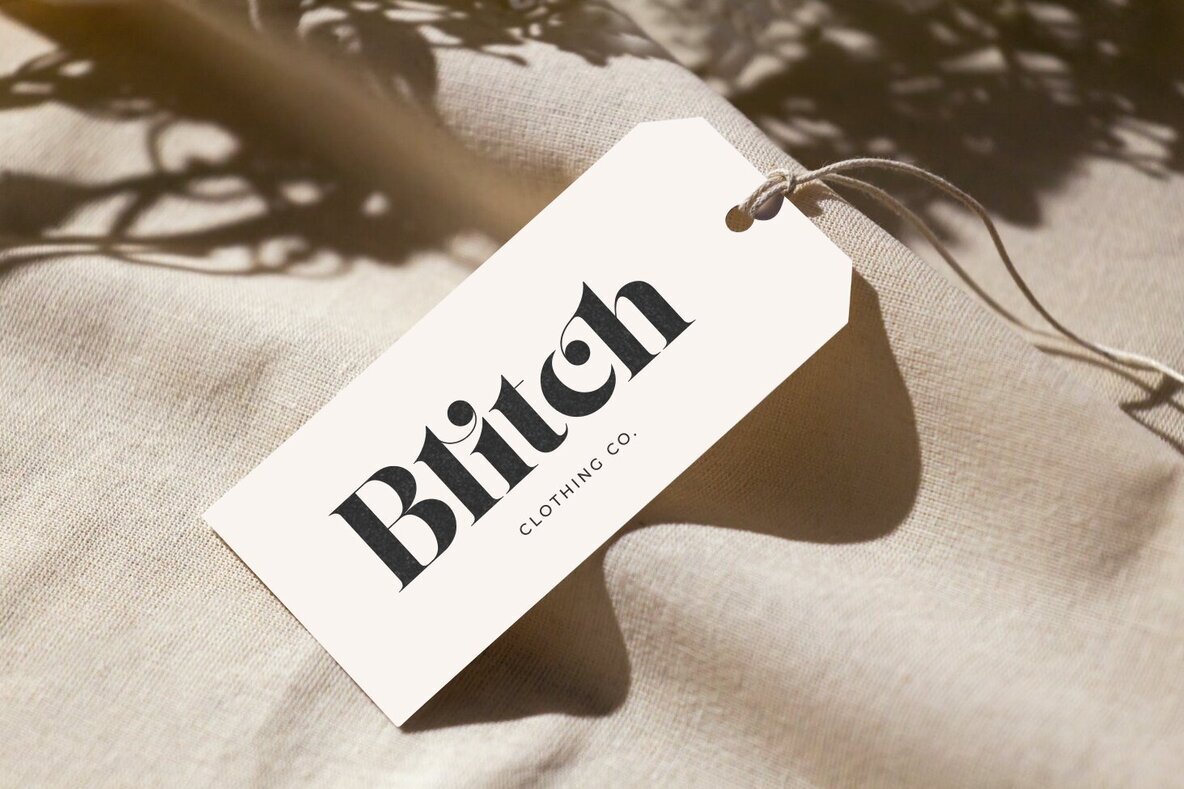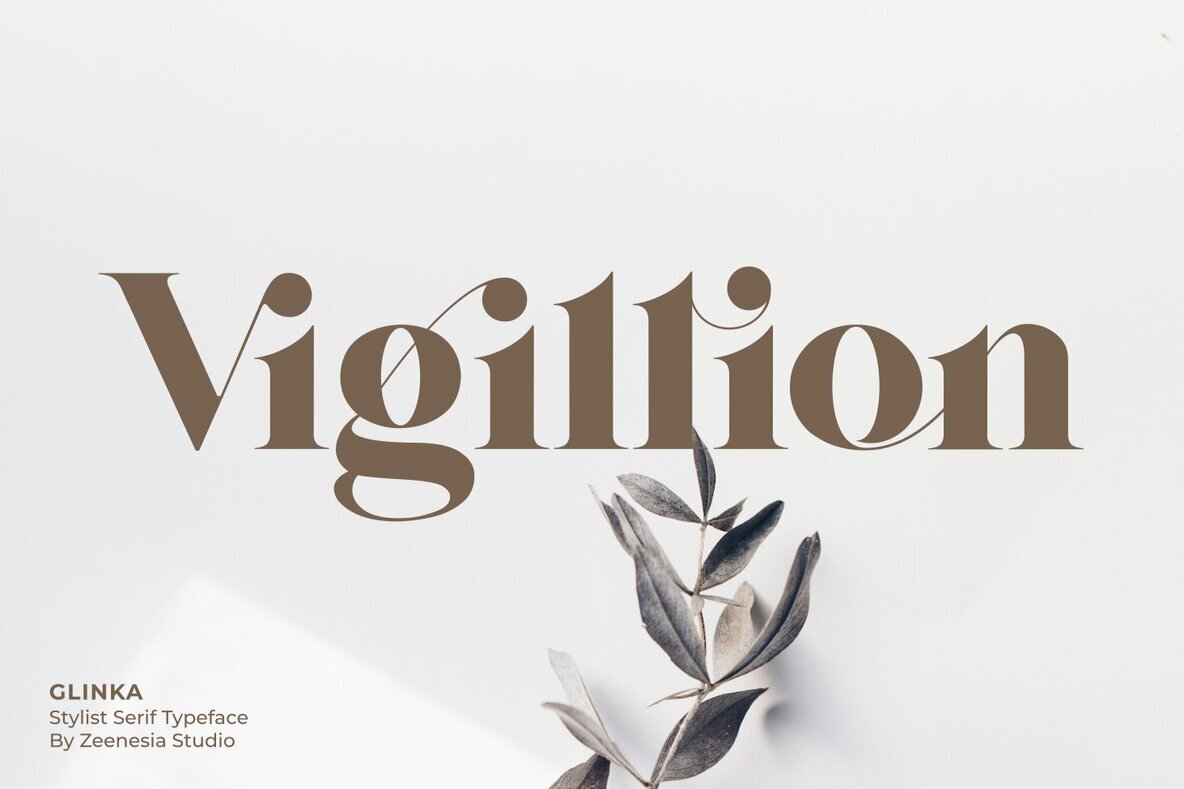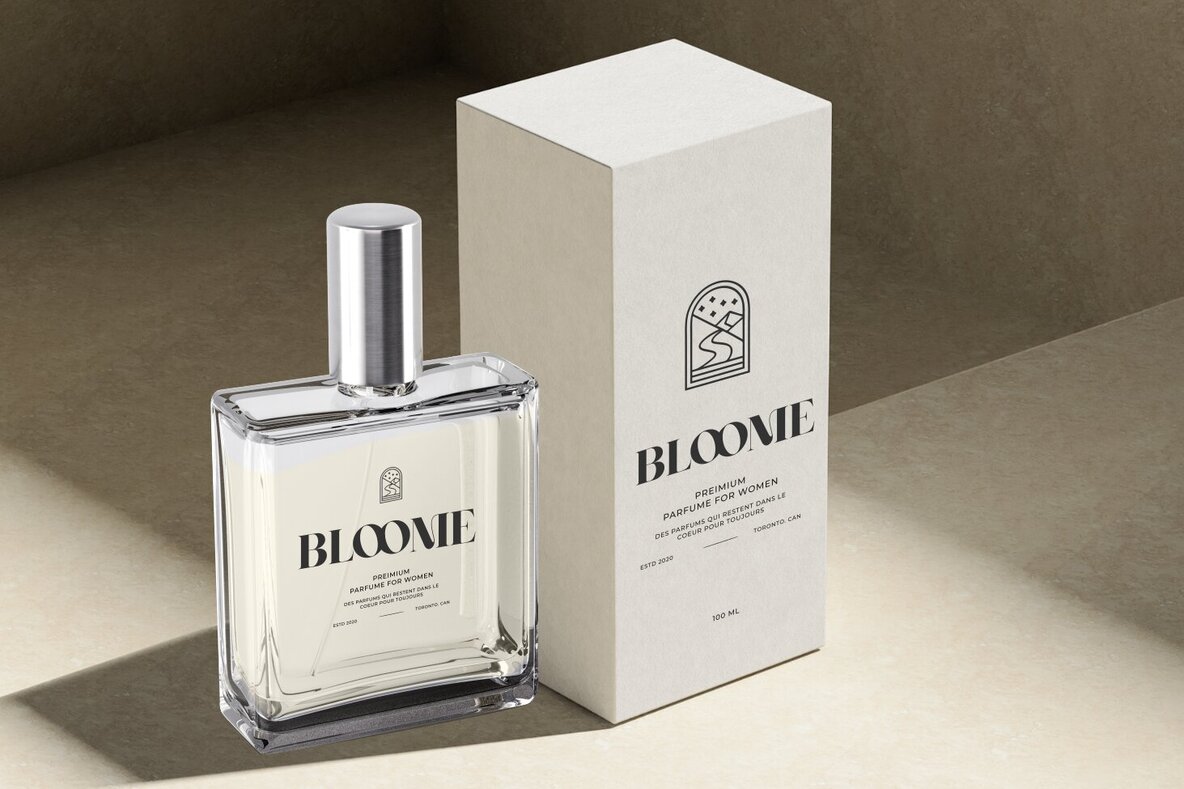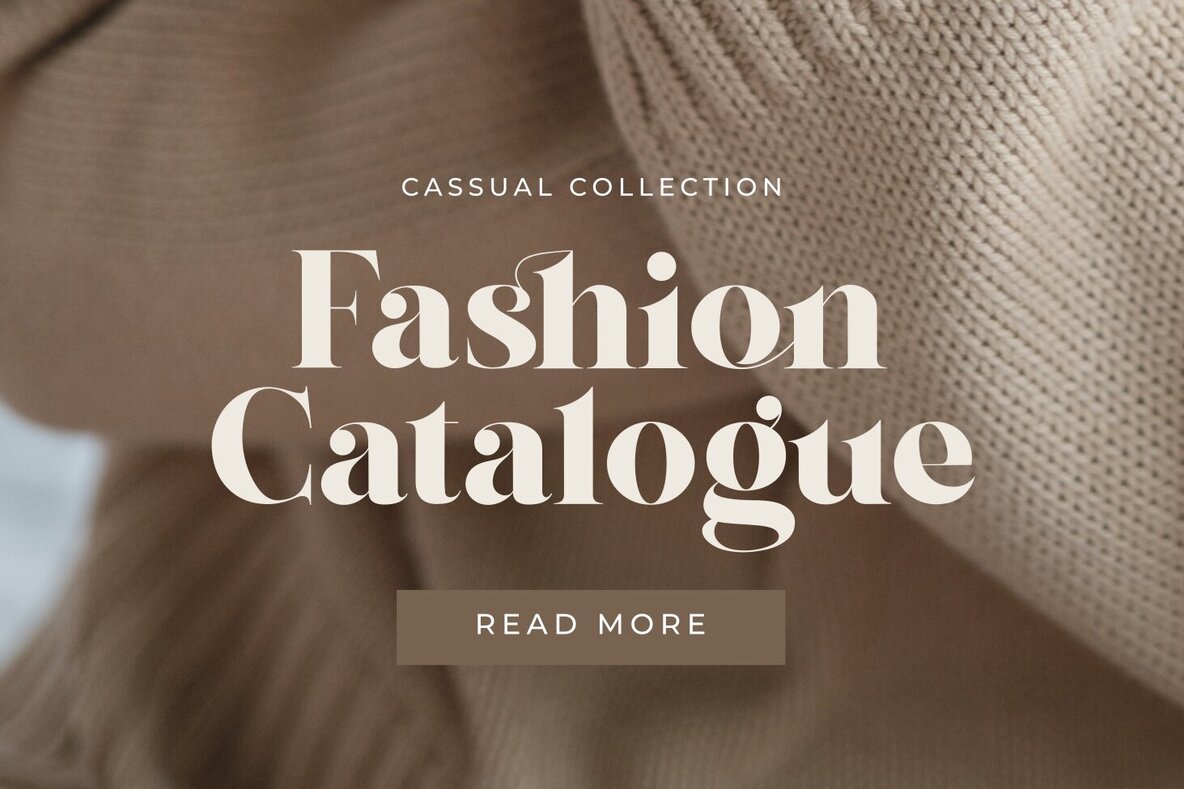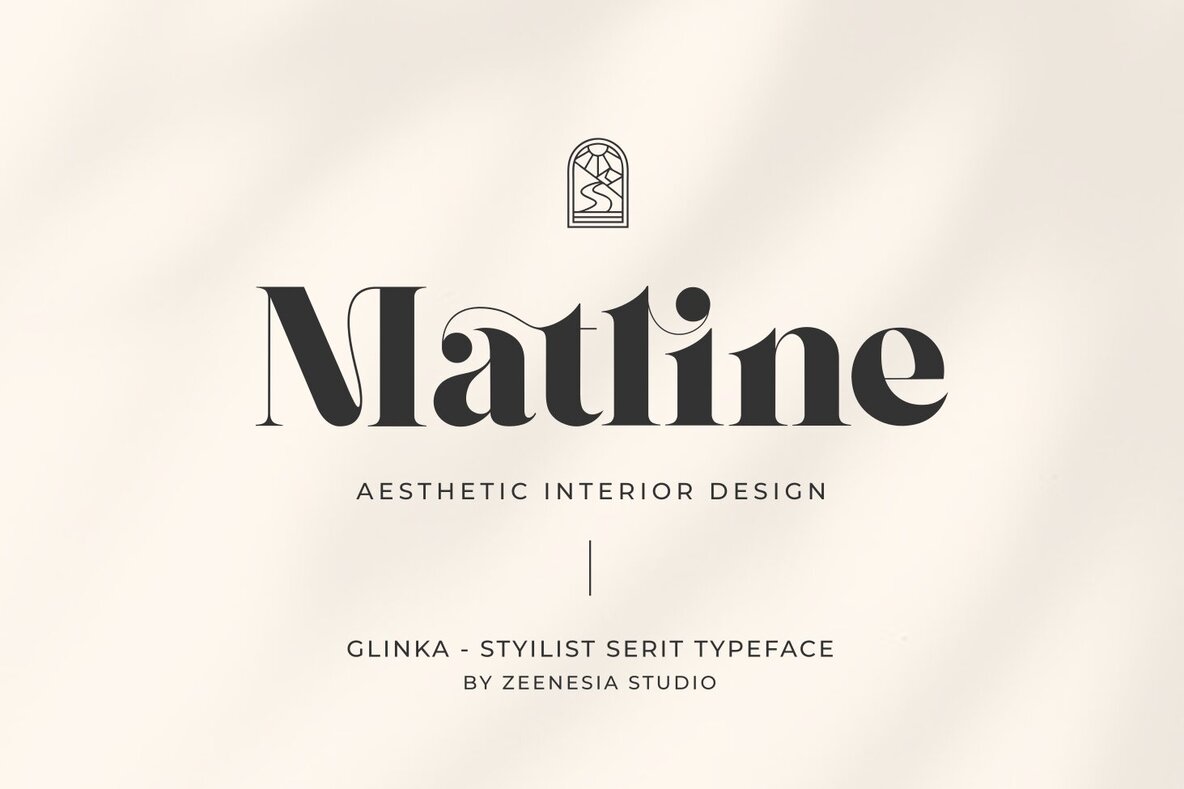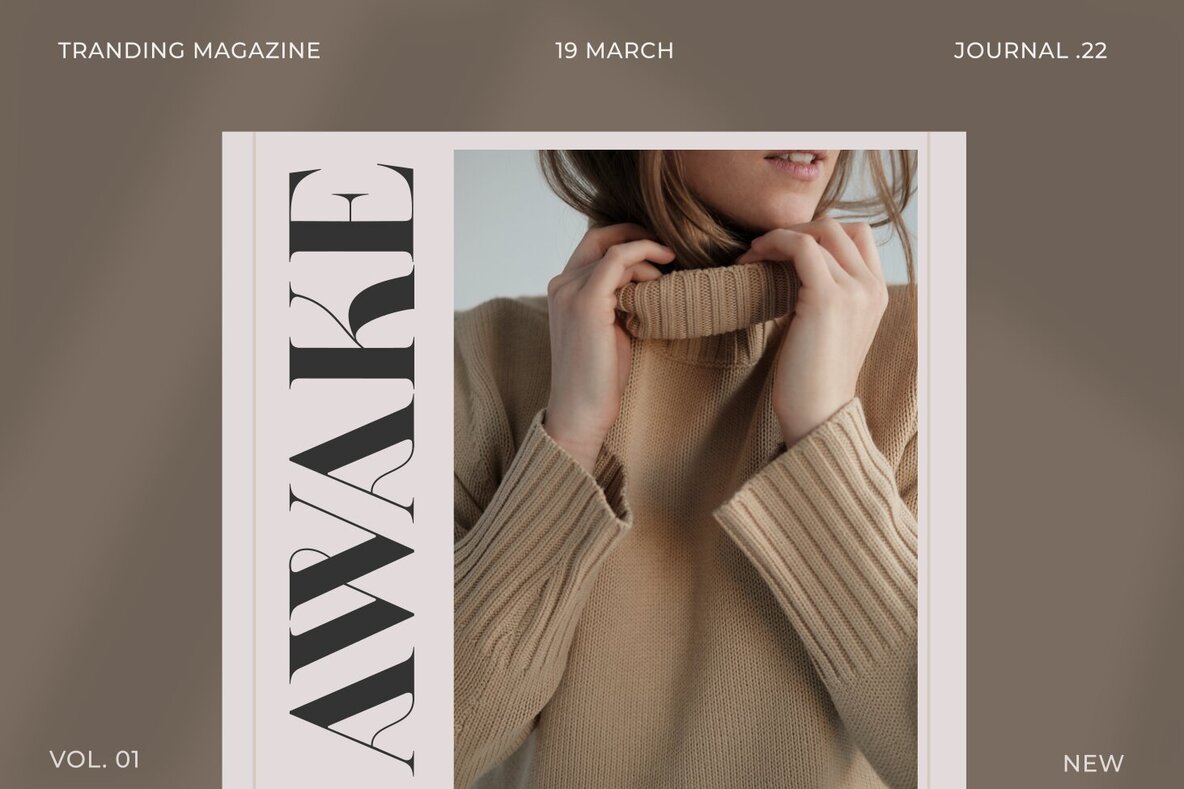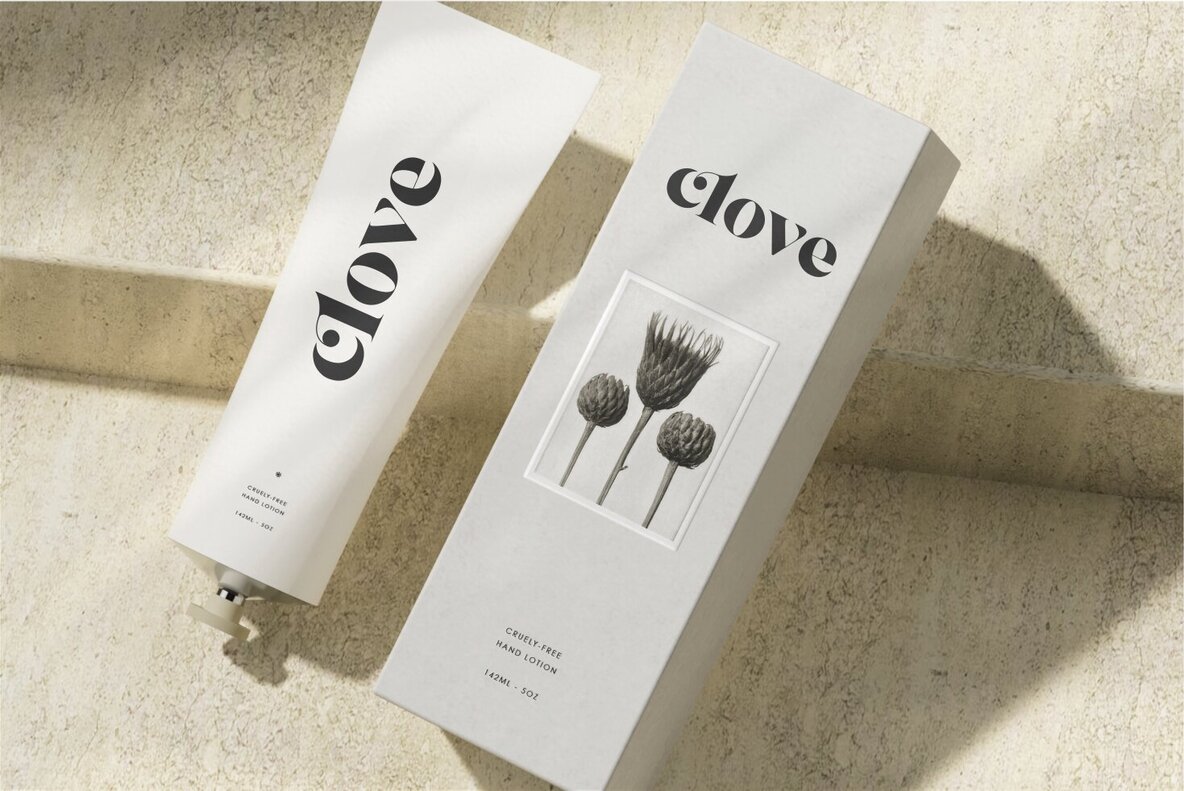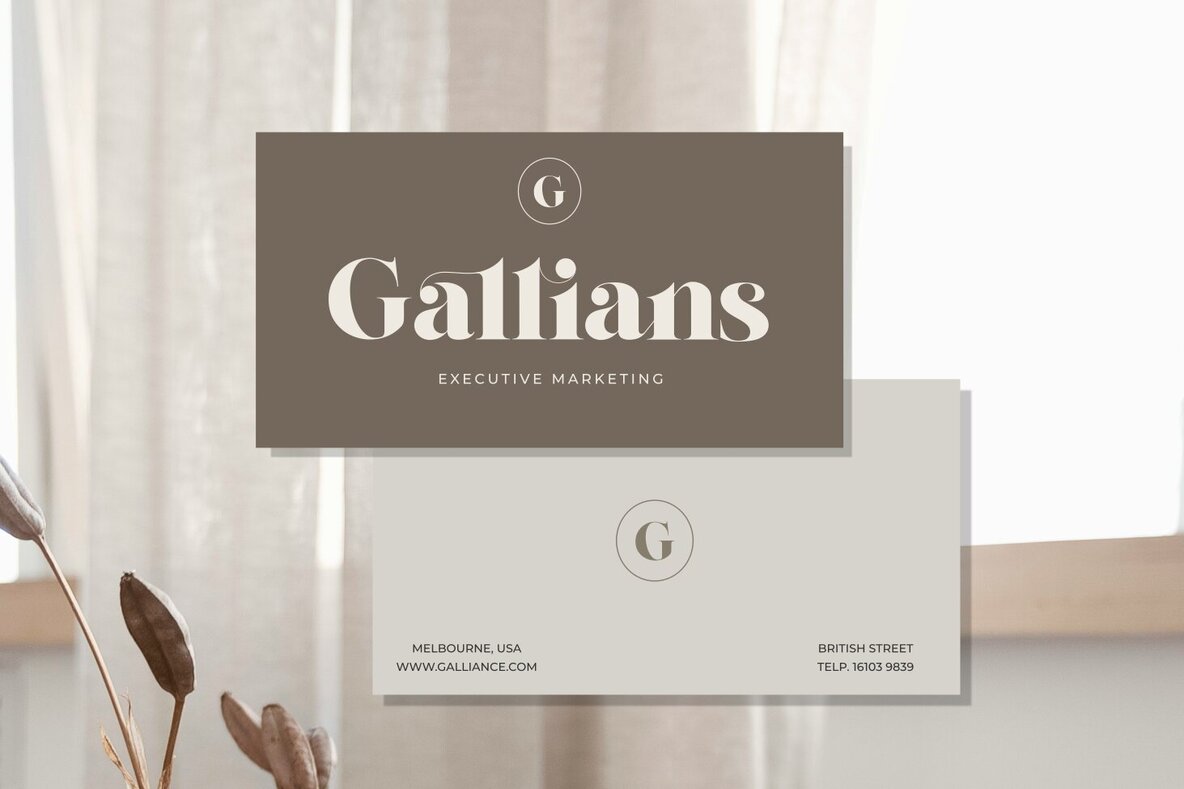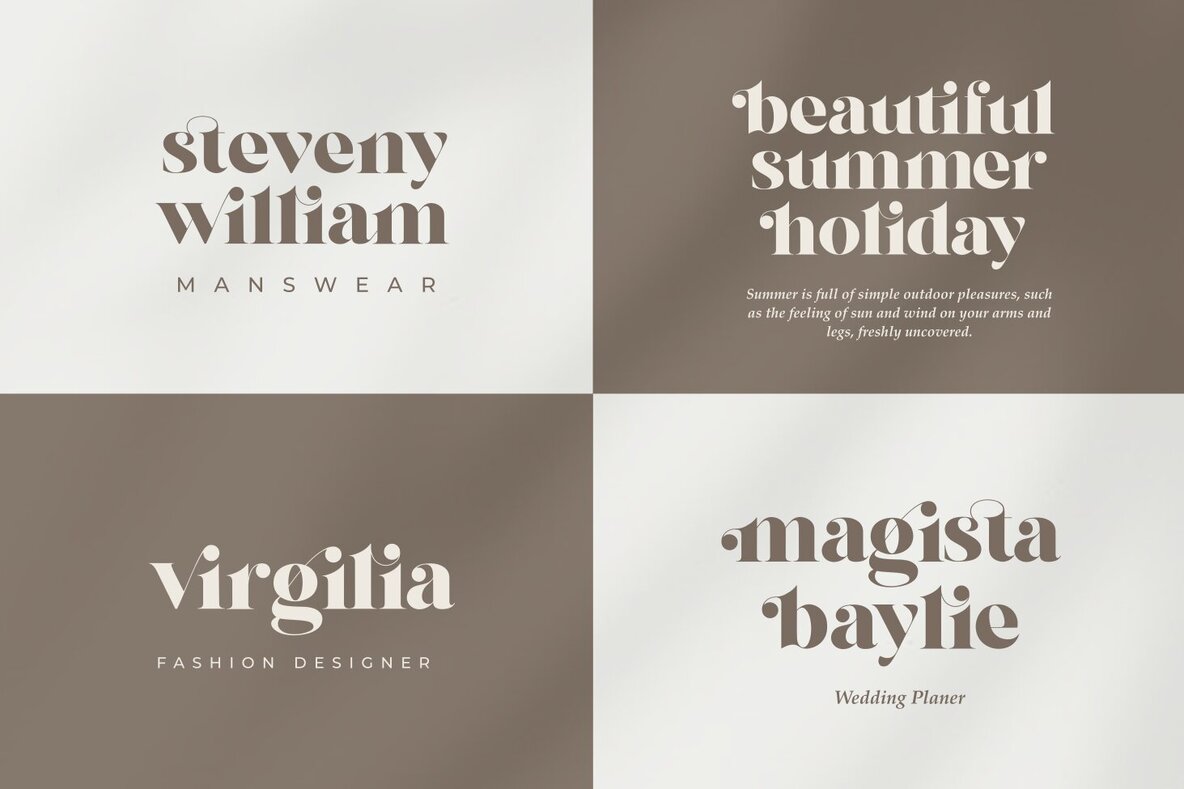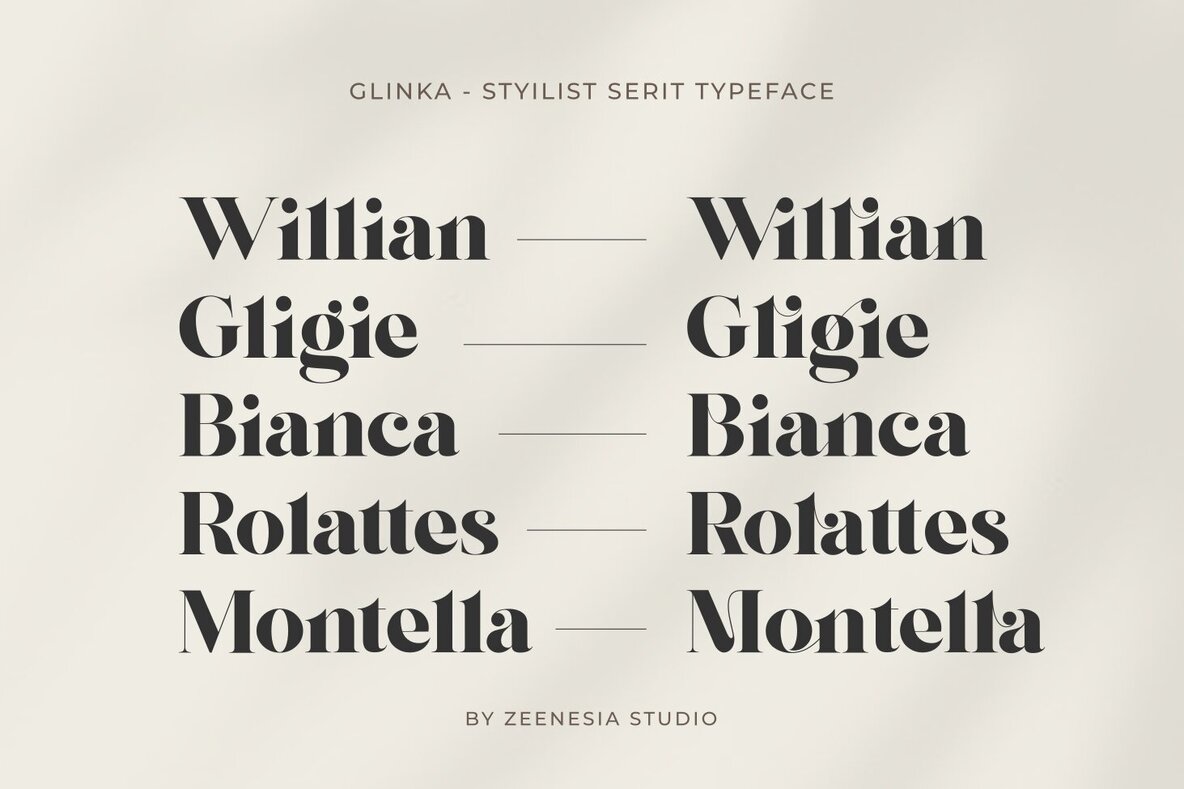
Glinka Font
Glinka Regular
Glinka is a modern serif font embodying elegance and sophistication. With numerous stylistic alternates and natural ligatures, this font elevates any design project with a classy aesthetic. Glinka seamlessly fits diverse applications, making it ideal for:Glinka: Elegant Serif Font With Stylistic Alternatives